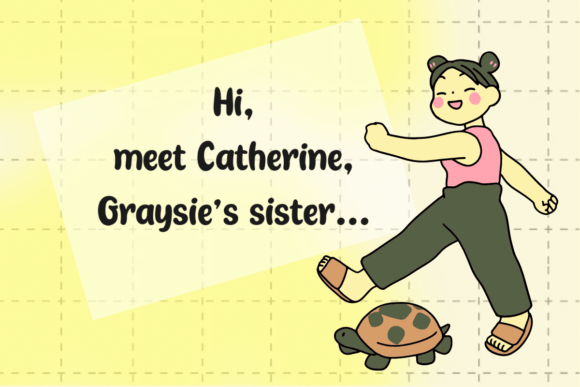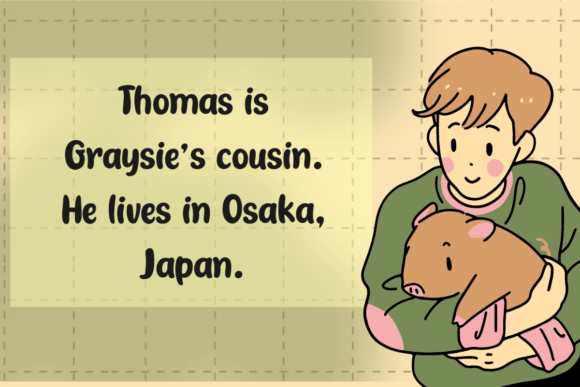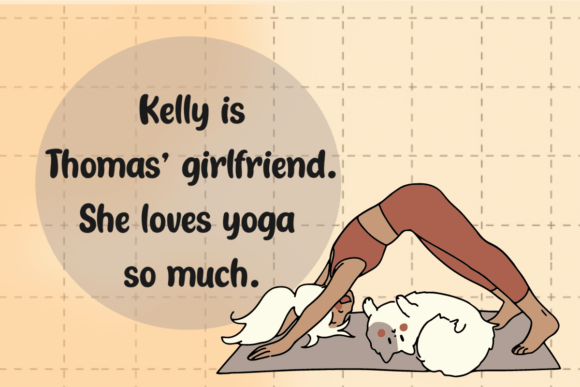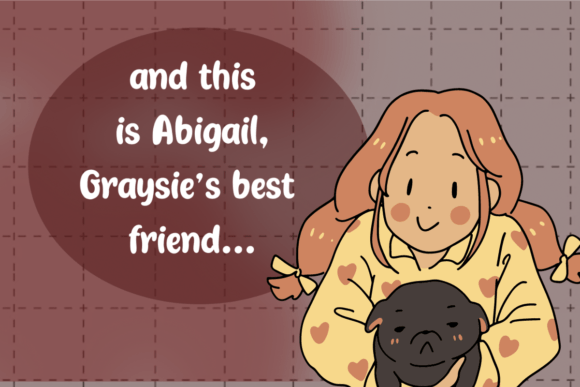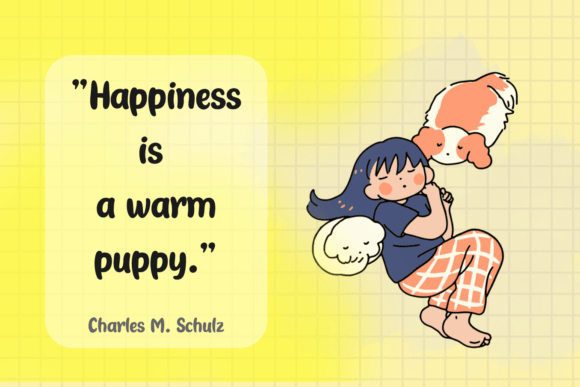
The Hunt for the Perfect Font: Discovering Graysie
I still remember the design project that led me to Graysie Font. I was working on a whimsical invitation for a friend’s baby shower, and I was determined to make it perfect. The design needed to be playful, yet elegant, and the font was the missing piece to the puzzle. After hours of scrolling through font libraries and trying out different combinations, I stumbled upon Graysie. It was love at first sight! ✨
A Delicate Handwritten Font for Unique Designs
Graysie is a delicate handwritten font, carefully crafted for a cool and unique design. This font can be used to write letters, invitations, food products, comical designs, cartoons, titles, social media posts, and more. Its versatility and charm make it an excellent addition to any designer’s toolkit.
An Honest Review of Graysie Font
What I Love About Graysie
- ✨ Elegant and whimsical: Graysie has a distinct, hand-crafted feel that adds a touch of personality to any design.
- ✅ Highly legible: Despite its delicate nature, Graysie is surprisingly easy to read, making it perfect for body text and headings.
- 💫 Unique character set: The font comes with a range of characters, including glyphs and stylistic alternates, which allow for creative experimentation.
While Graysie is an excellent font, it’s not without its quirks. ⚠️ Some users may find that the font:
- 🤔 Can be too delicate for certain design applications, such as very large or bold headings.
- ⚠️ May not work well with very long blocks of text, as it can become difficult to read.
The Story Behind Graysie Font
Graysie was designed with the intention of creating a unique, handwritten font that captures the essence of a carefree, artistic spirit. The designer aimed to craft a font that would be both elegant and whimsical, perfect for creative projects that require a personal touch.
Q: What type of designs is Graysie best suited for?
A: Graysie is perfect for designs that require a touch of elegance and whimsy, such as invitations, social media posts, and food product labels.
Q: Is Graysie a difficult font to read?
A: Despite its delicate nature, Graysie is surprisingly easy to read, making it perfect for body text and headings.